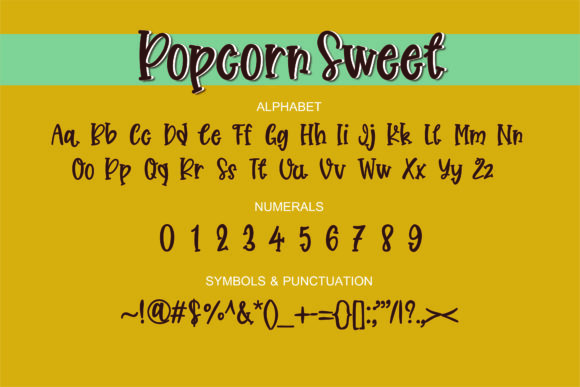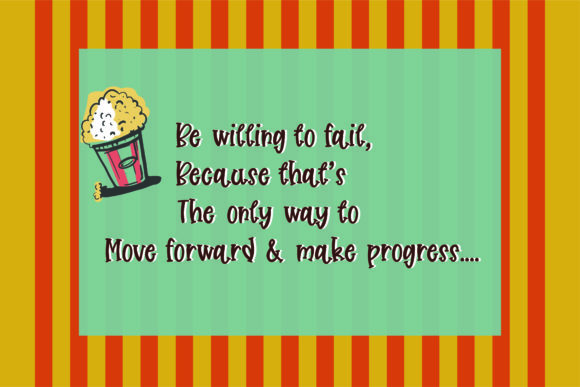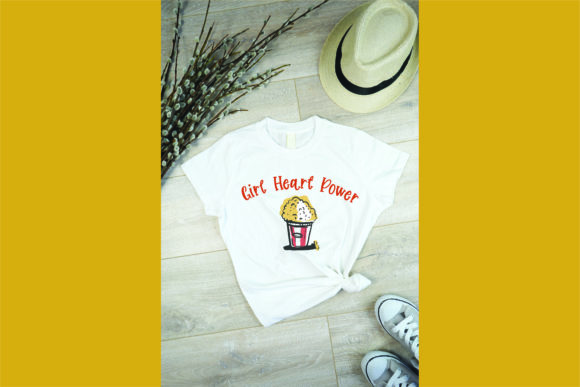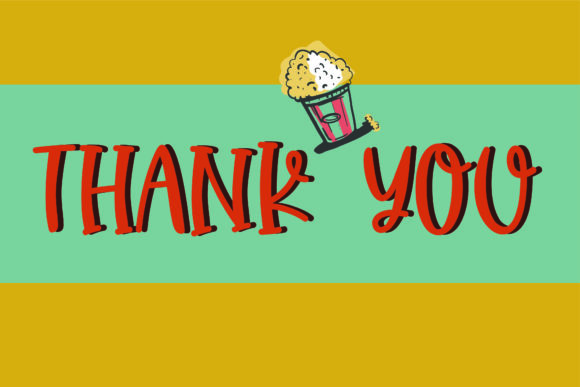
Introduction to Popcorn Sweet Font
Do you remember the excitement of creating something new, only to have it ruined by a font that just doesn’t fit? We’ve all been there – pouring our heart and soul into a project, only to have the final touches fall flat due to a lackluster font. But what if I told you that there’s a font that can turn that frown upside down? Meet the adorable Popcorn Sweet Font, a charming handwritten font that’s sure to bring a smile to your face.
Whether you’re working on a children’s game, a cartoon-related design, or just a creative project that needs a touch of whimsy, the Popcorn Sweet Font is the perfect addition to your design arsenal. With its high-quality, free download option and transparent background, this font is a valuable resource for any designer looking to add a little extra magic to their work.
Key Features of Popcorn Sweet Font
- Unique, hand-drawn design with a playful and whimsical feel, perfect for creative projects and designs that need a touch of sweetness.
- High-quality font with transparent background, allowing for seamless integration with any design or image.
- Designed to be highly customizable, allowing users to adjust font styles, sizes, and colors to suit their specific creative project needs.
- Part of a larger collection of fonts, offering a wide range of design possibilities and endless creative opportunities.
Honest Review: Popcorn Sweet Font
I recently stumbled upon the Popcorn Sweet Font and I must say it’s been a delightful addition to my design arsenal. This free download has been a game-changer for my creative projects, especially those requiring a touch of whimsy and playfulness.
- ✨ High-quality glyphs: The font boasts crisp, well-designed glyphs that are perfect for various design applications.
- ✨ Versatile usage: I’ve used the Popcorn Sweet Font in logos, social media graphics, and even print materials – it’s been a great all-around choice.
- ✨ Transparent background: This feature has been incredibly useful for creating visually appealing designs without the hassle of a solid background.
While the Popcorn Sweet Font is an excellent resource, there are a few limitations to consider:
- ⚠️ Limited character set: The font may not have the extensive character set required for more complex designs or languages.
- ⚠️ Not ideal for body text: Due to its playful nature, the font may not be suitable for large blocks of body text.
Overall, I’m thoroughly impressed with the Popcorn Sweet Font. Its unique design and high-quality glyphs make it a valuable addition to any designer’s toolkit. If you’re looking for a fun, creative font for your next project, I highly recommend giving it a try!
Tips for Getting the Most Out of Popcorn Sweet Font